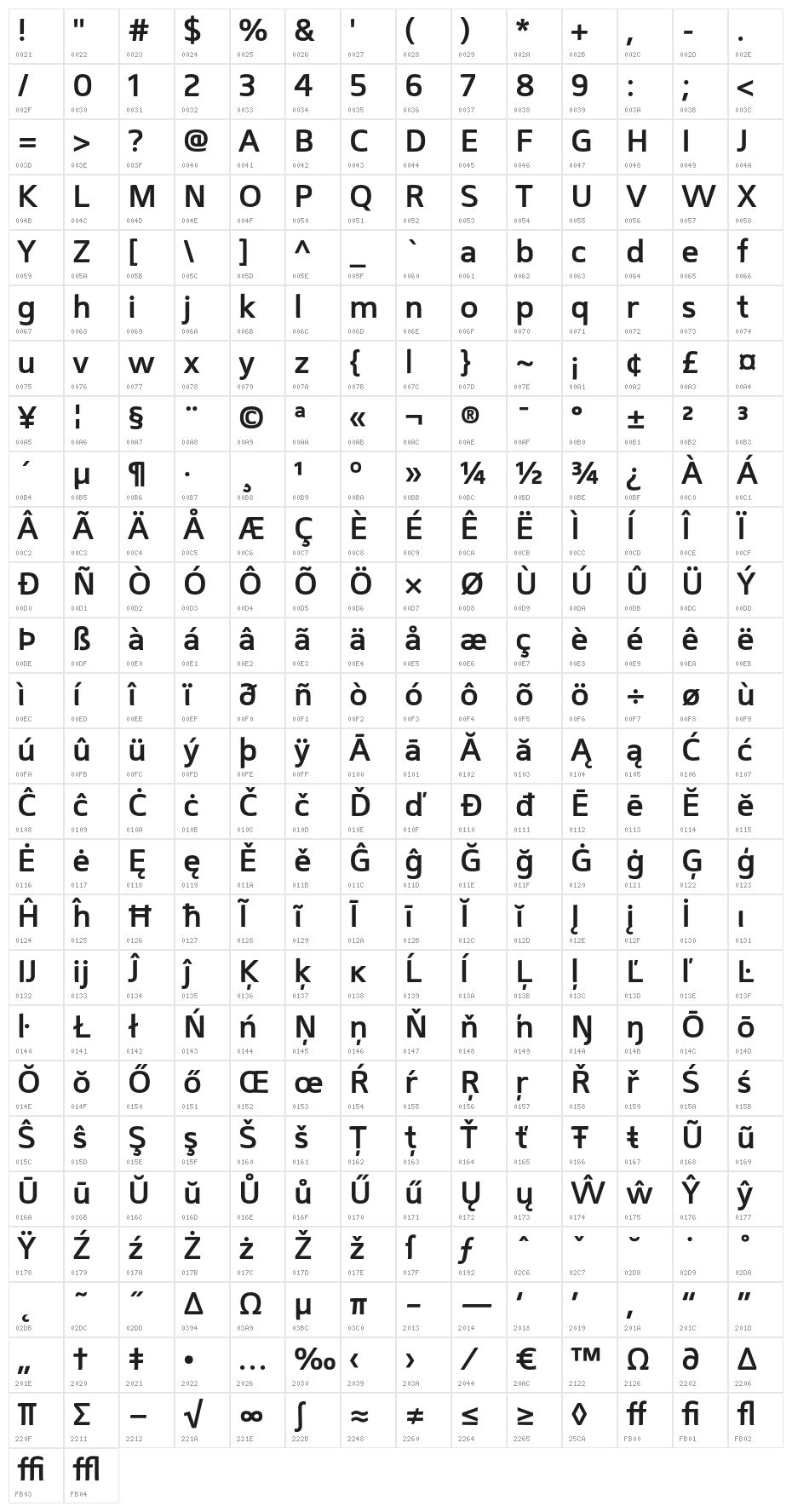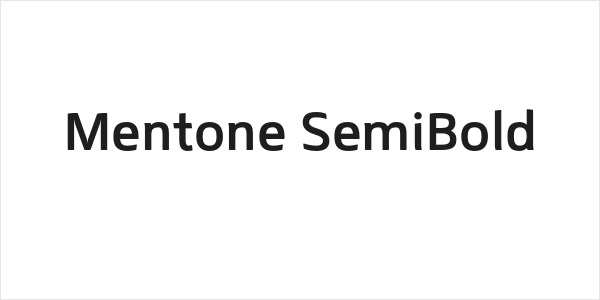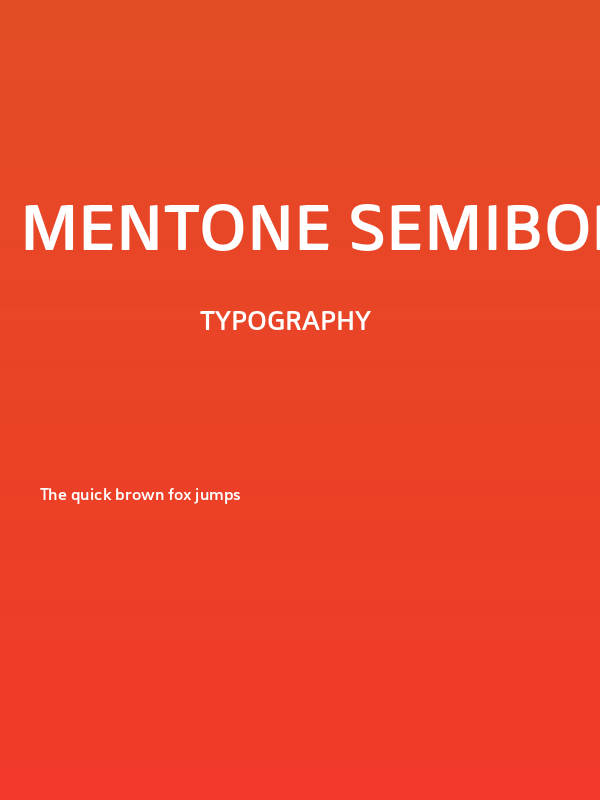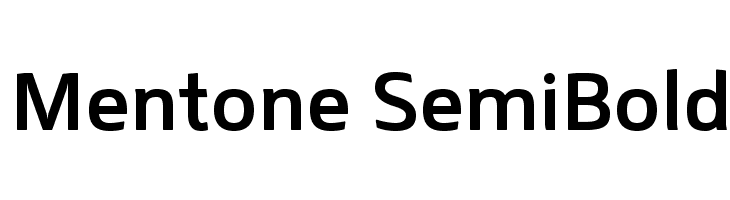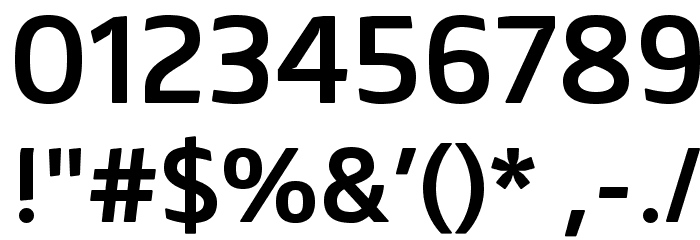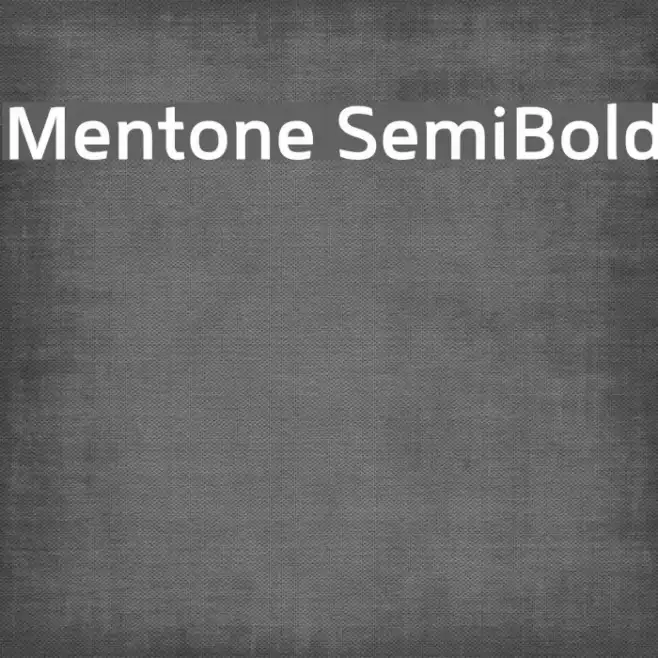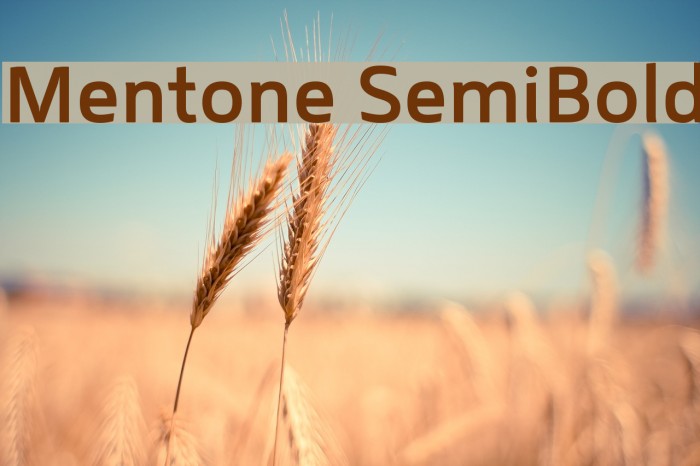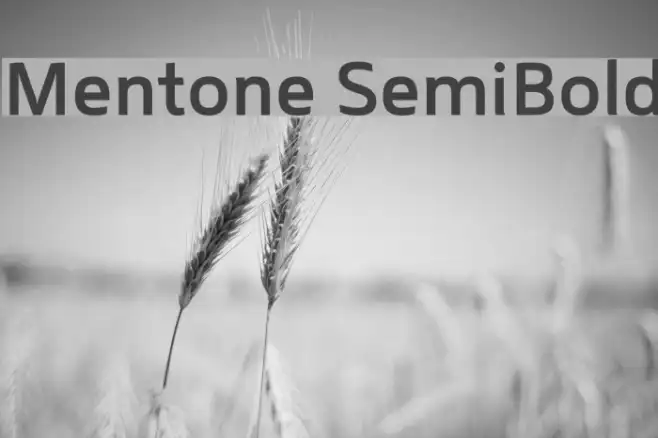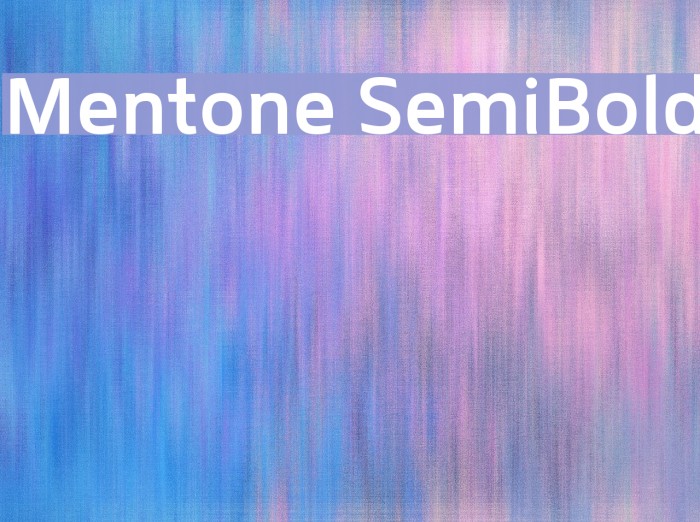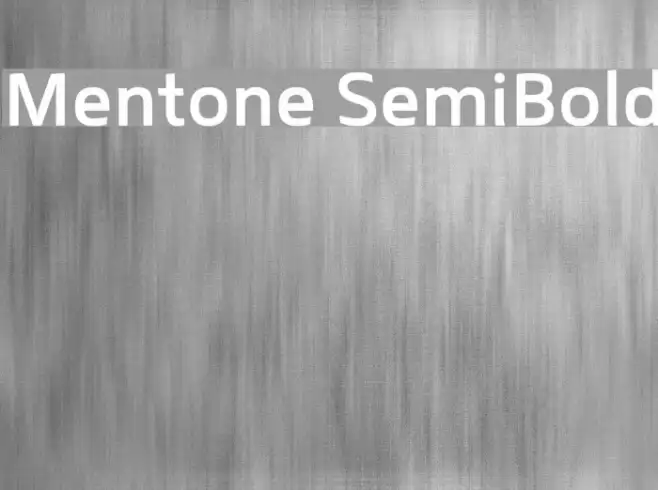
Mentone SemiBold Font
Mentone SemiBold Description
This font features a clean and modern sans-serif design with a semi-bold weight, providing a strong yet approachable appearance. The characters are well-proportioned with a slightly rounded finish, enhancing readability and giving a friendly tone. The uppercase letters are uniform and balanced, while the lowercase letters maintain a consistent x-height, ensuring clarity across various sizes. The numerals are clear and distinct, making them suitable for both text and numerical data. Special characters are designed with precision, maintaining the overall aesthetic of the font.